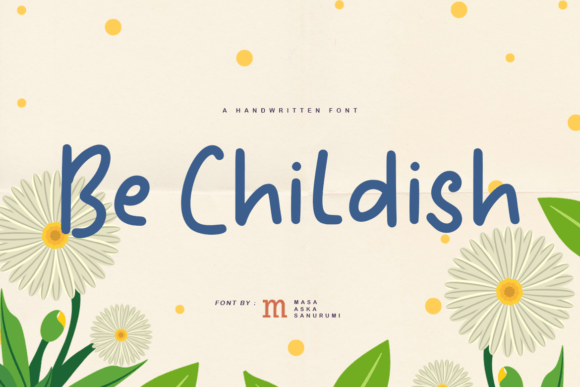
Welcome to the enchanting world of Be Childish, a captivating handwritten font that will ignite your creativity and leave an unforgettable mark on your designs. Crafted with meticulous precision by the talented Masa Aska Sanurumi, Be Childish is not just a font; it's an invitation to unleash your inner child and let your imagination soar.
Whether you're crafting heartfelt greeting cards, creating eye-catching headlines, or adding a touch of whimsy to your social media posts, Be Childish is the perfect choice. Its playful, yet elegant strokes evoke a sense of nostalgia and charm, instantly captivating your audience.
Imagine your words dancing across the page in the enchanting curves of Be Childish. Each letter is a work of art, carefully designed to convey emotion and personality. The font's versatility shines through in every application, from personal projects to professional designs.
With Be Childish, you'll have the power to transform ordinary text into extraordinary expressions. Its unique character will add a touch of magic to your designs, making them stand out from the crowd. Embrace the playful spirit of Be Childish and let your creativity shine brighter than ever before.